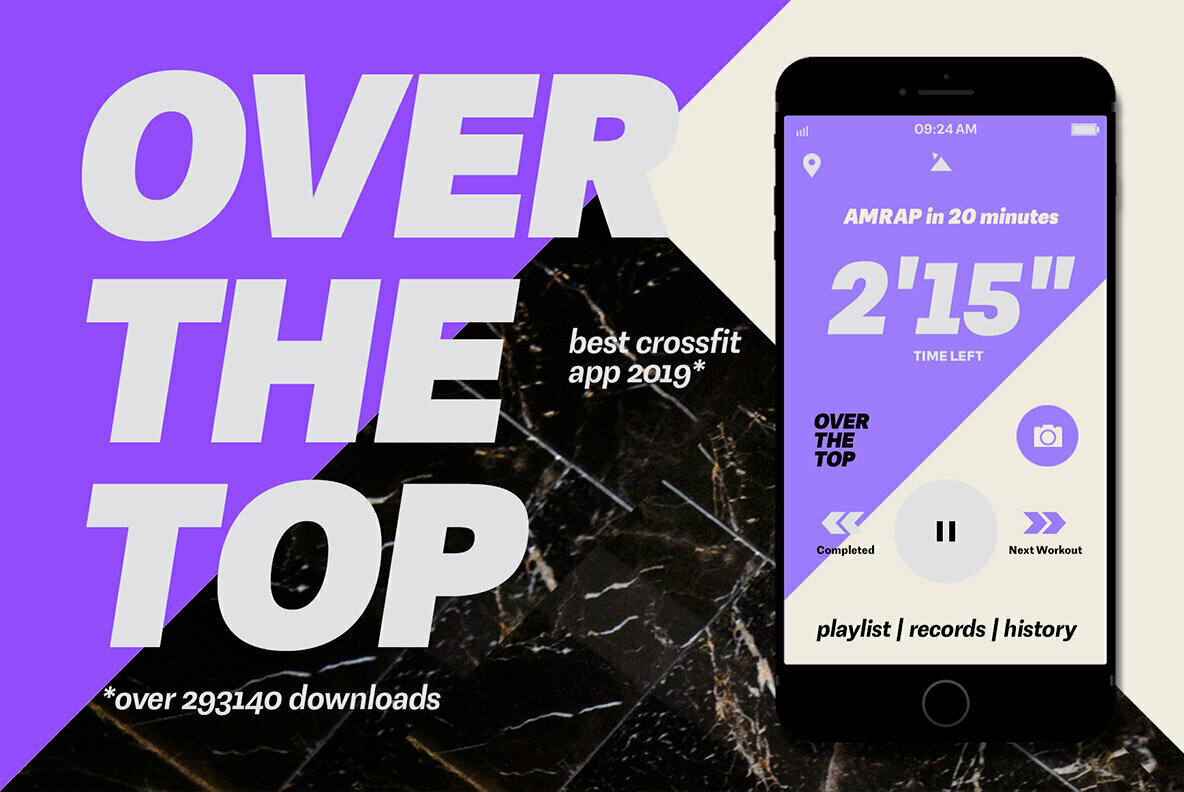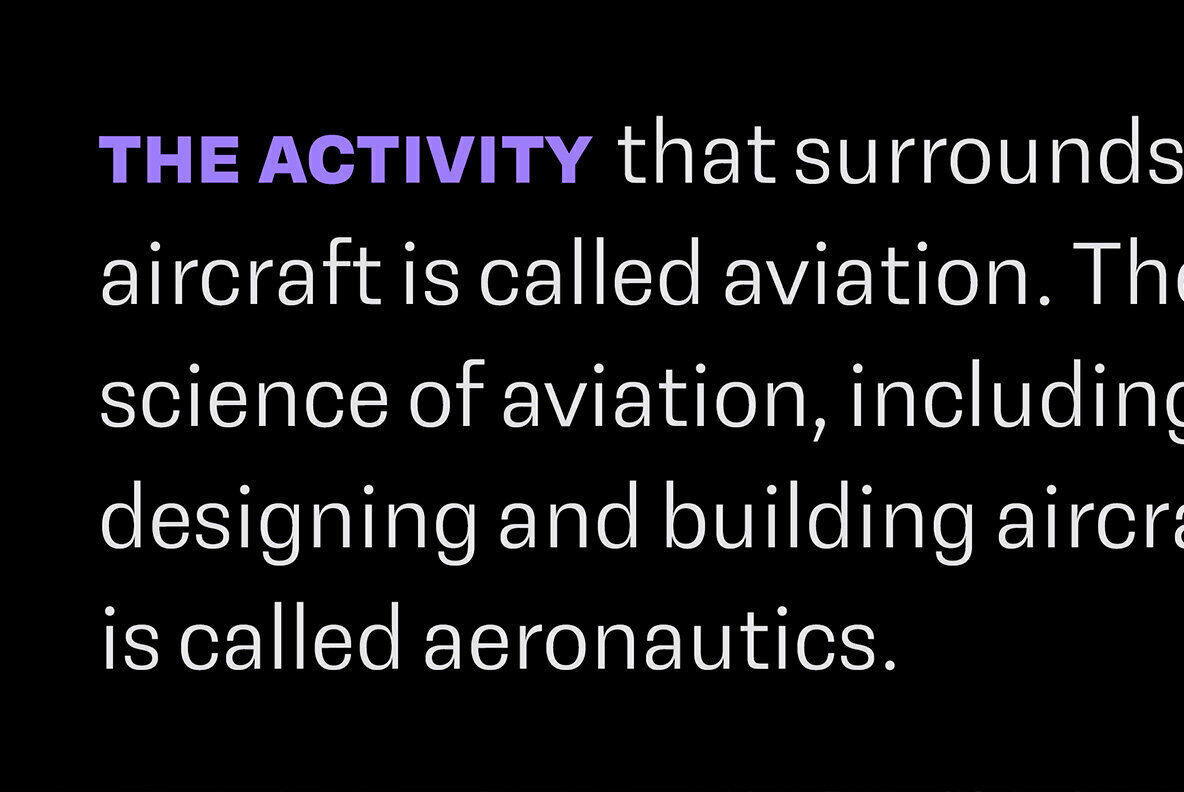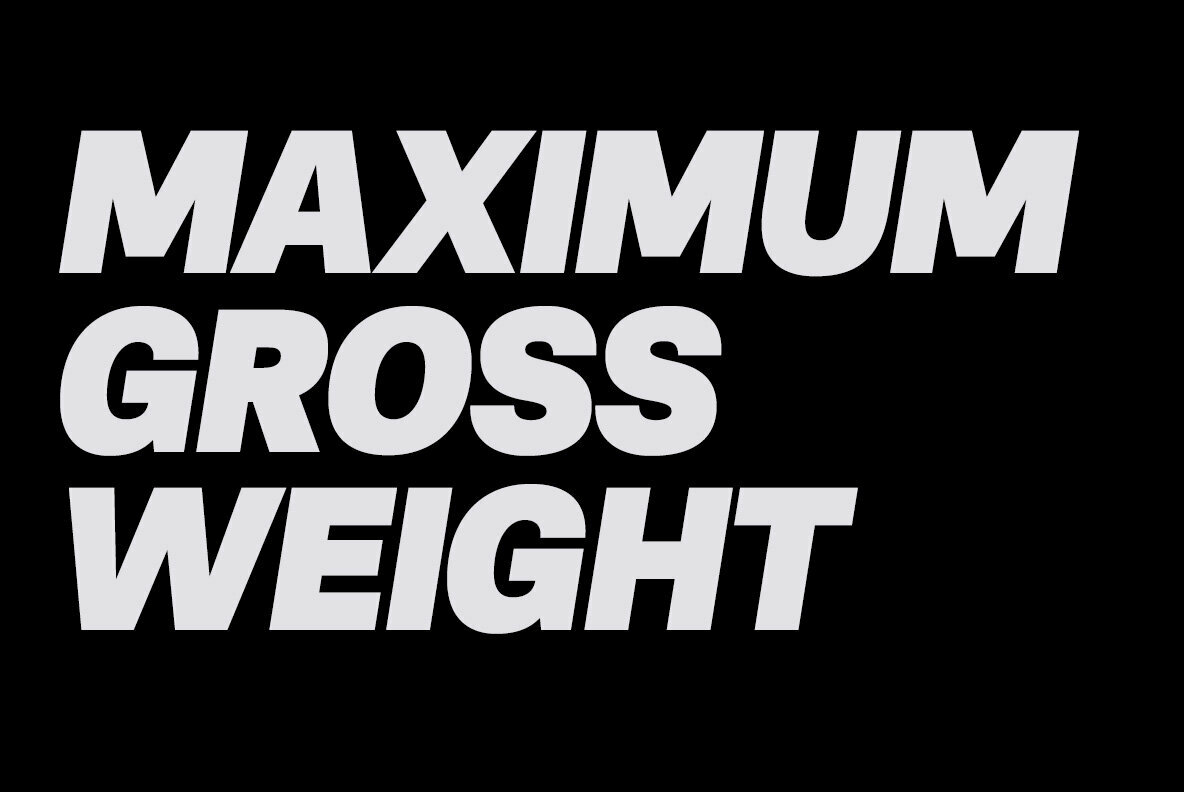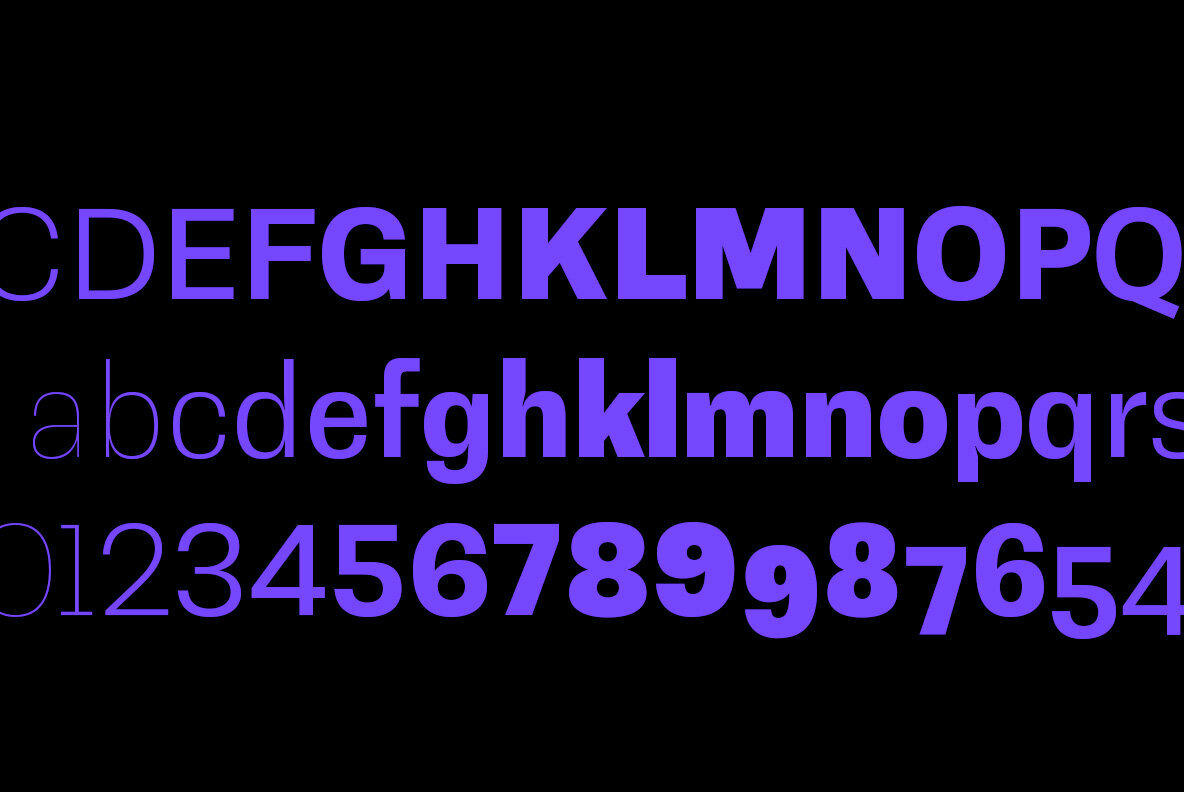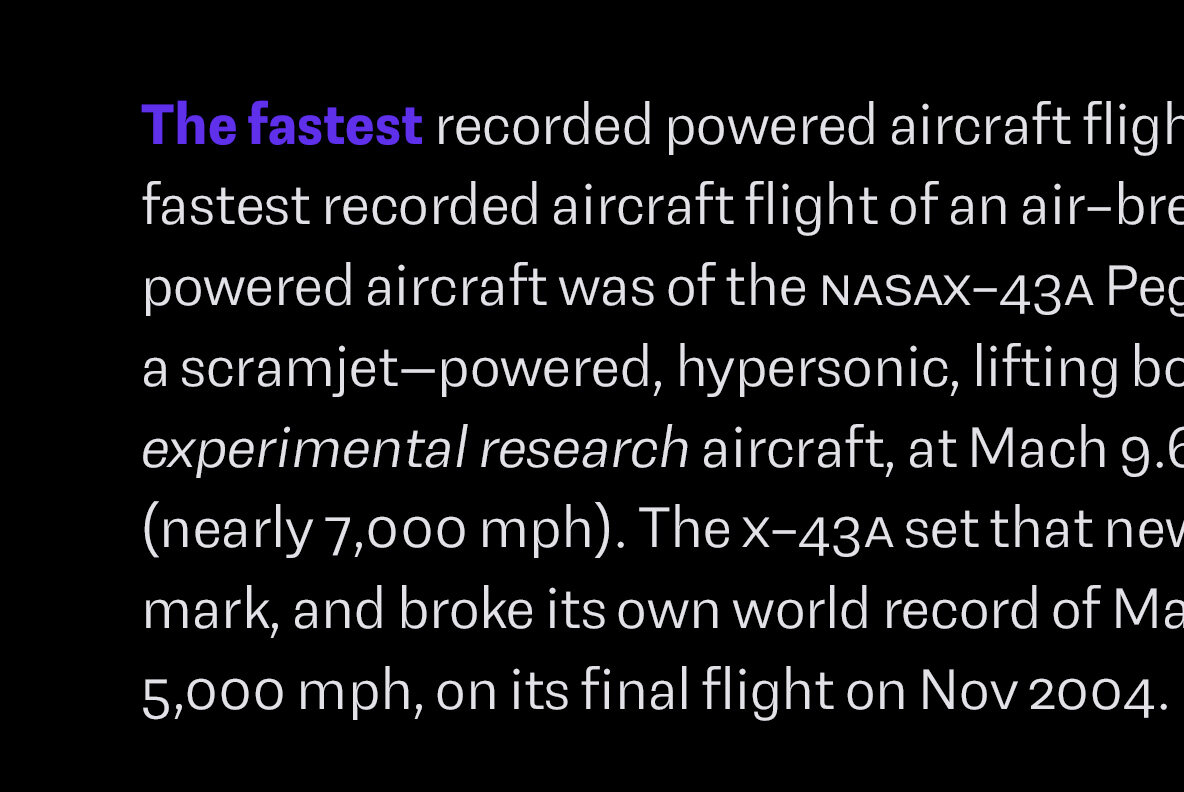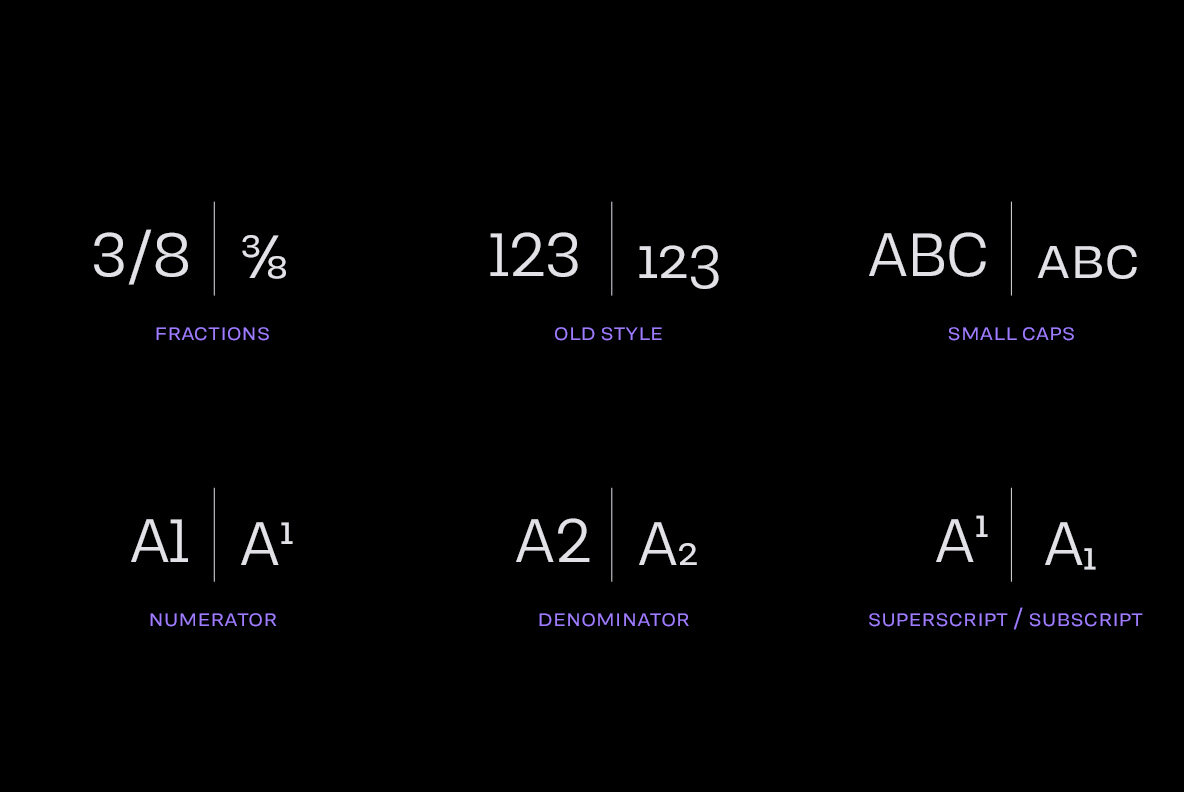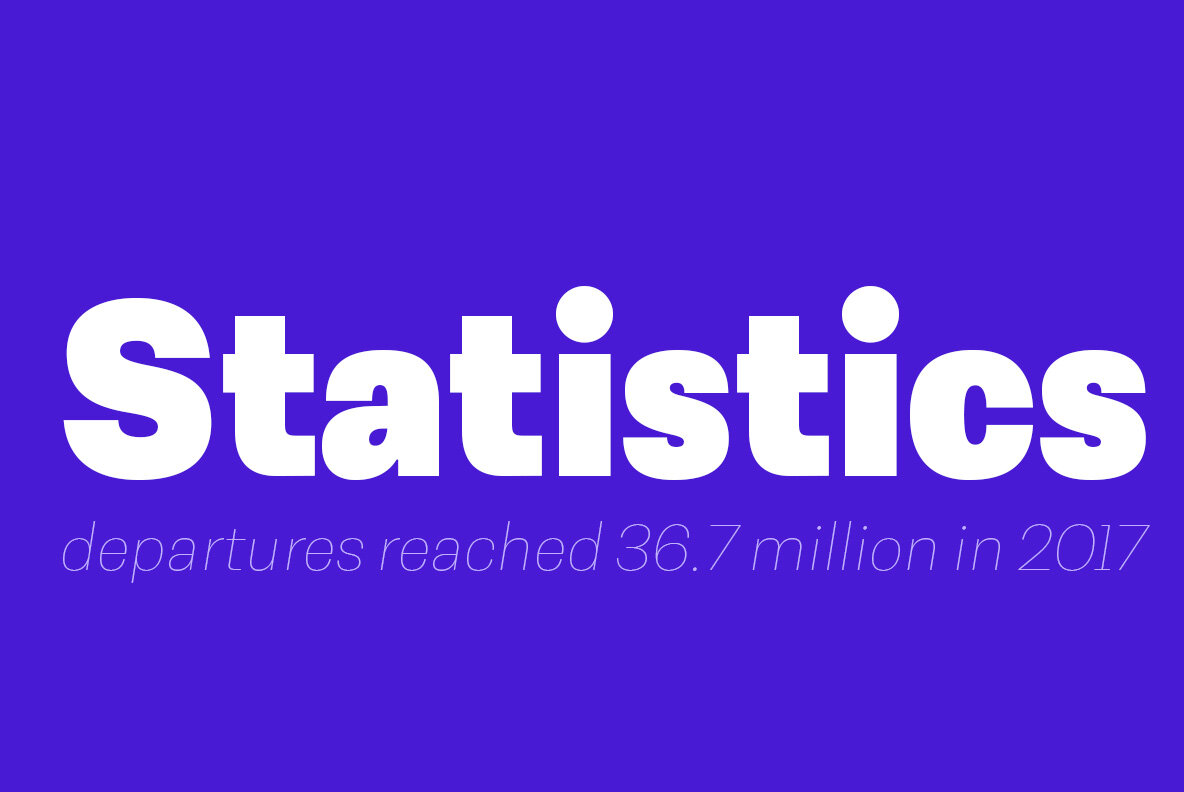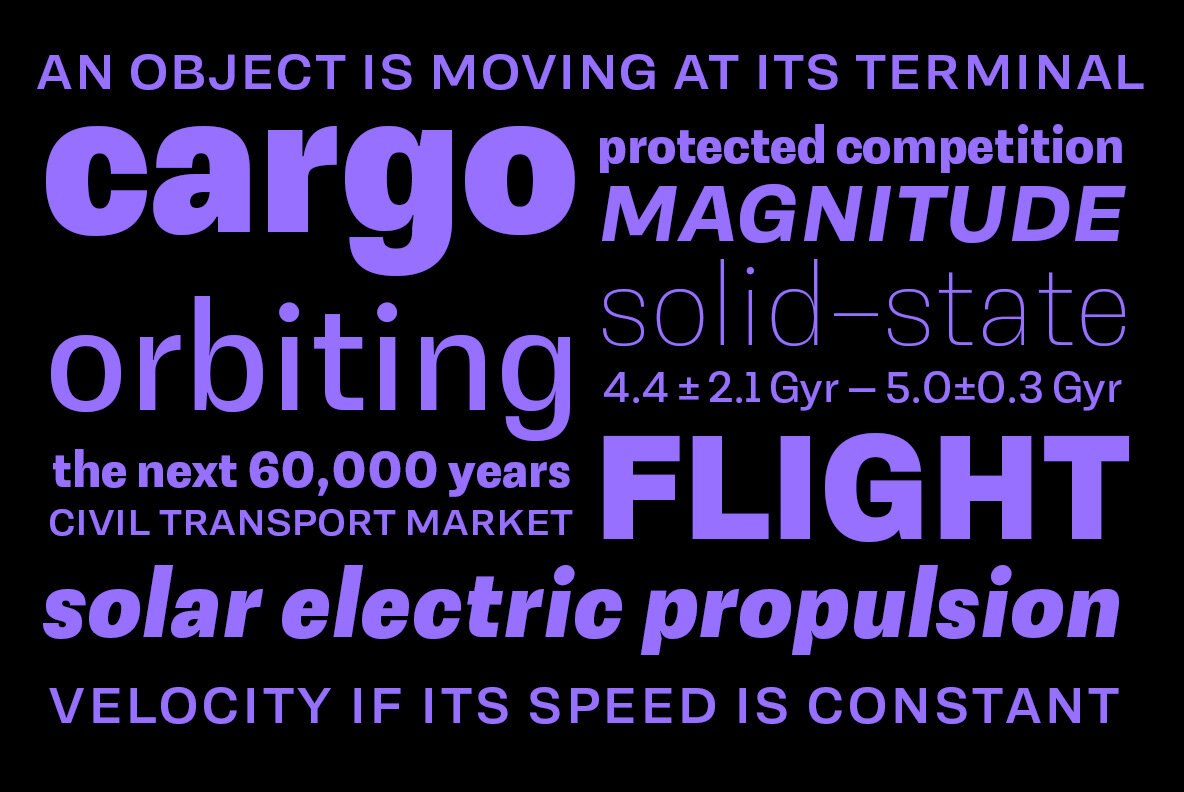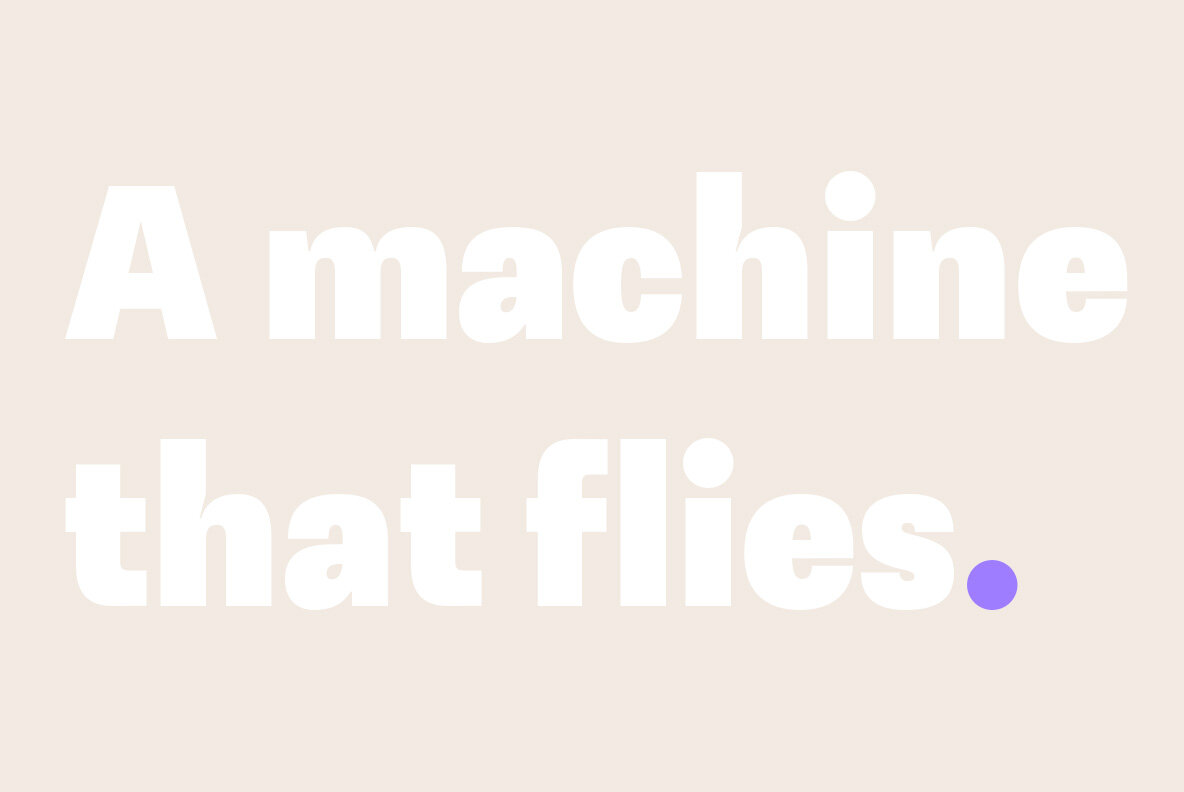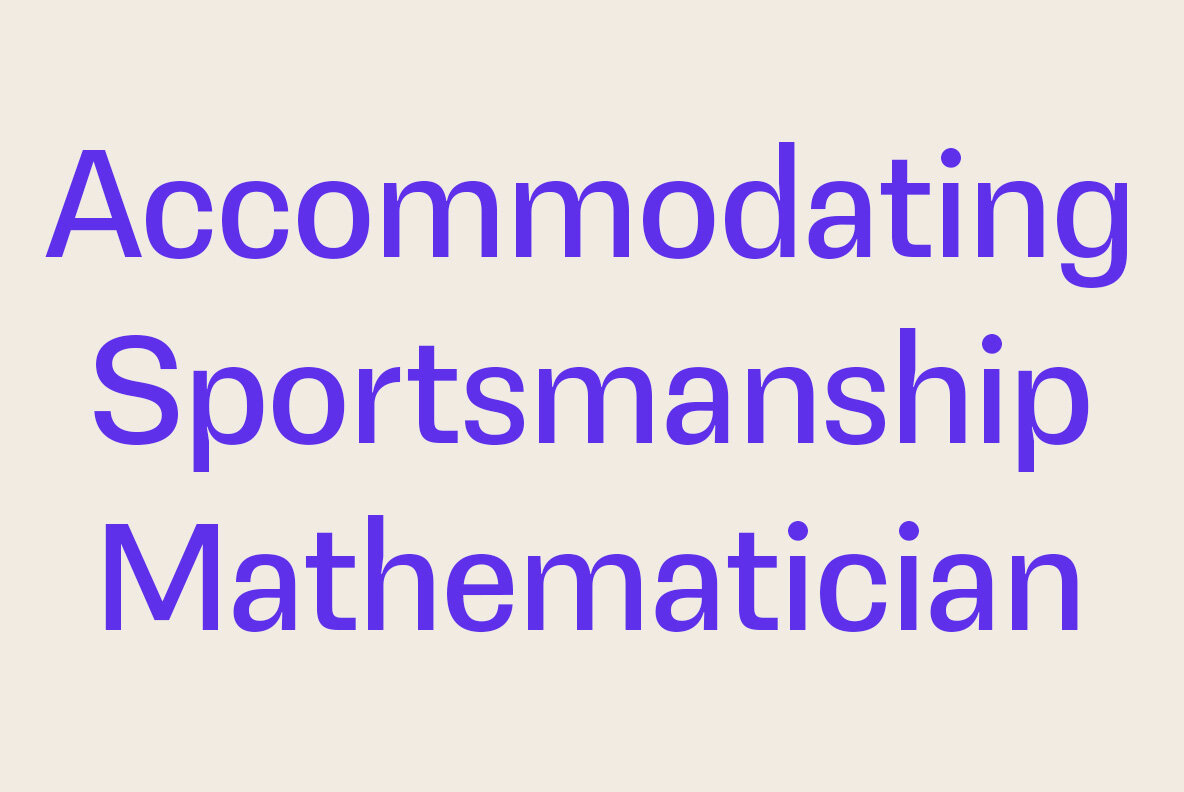
Avion Font
Despite what some might say, you can’t just always go for that most ubiquitous font in the world, can you?
Avion font family channels those cool modernist vibes yet brings something new to the table.
With a slightly more rectangular approach and some clever detailing, Avion has a distinct look of its own, yet provokes a calming familiarity of neutrality and objectiveness. As goes without saying, it’s also equipped with a sensible amount of features that make it a true, versatile workhorse.